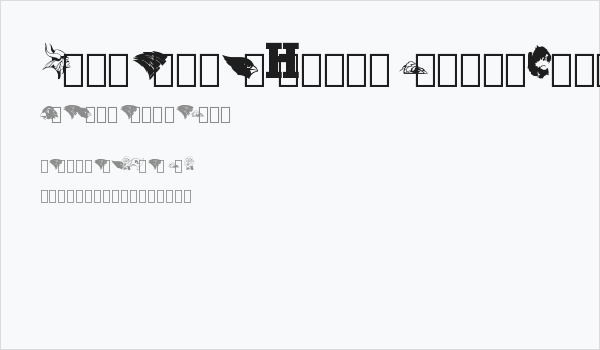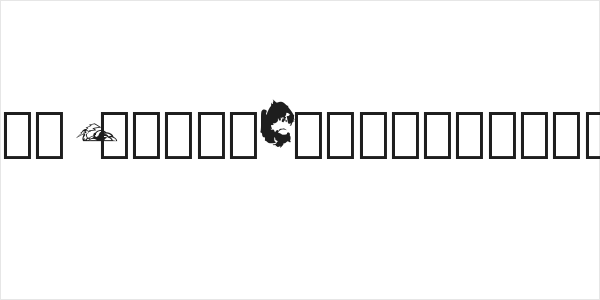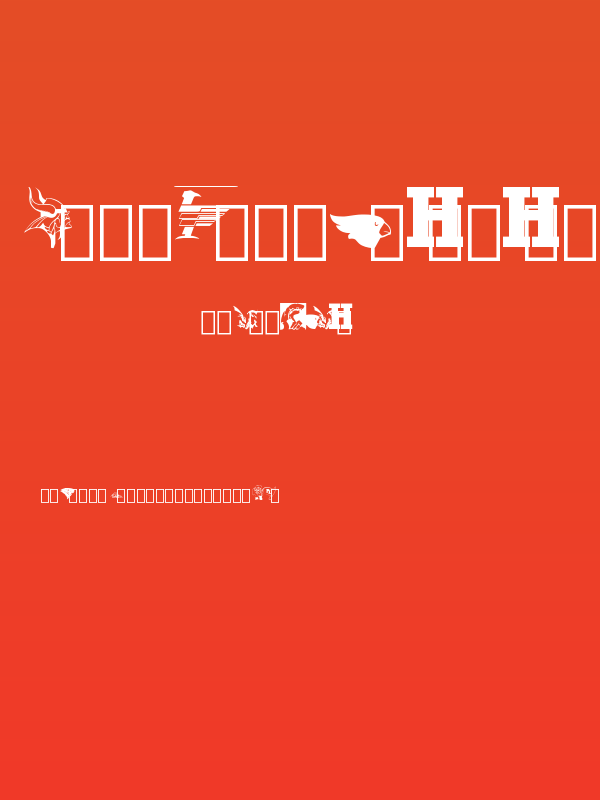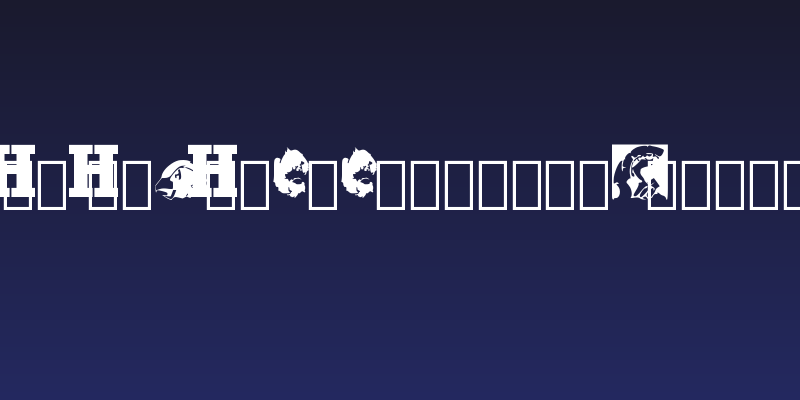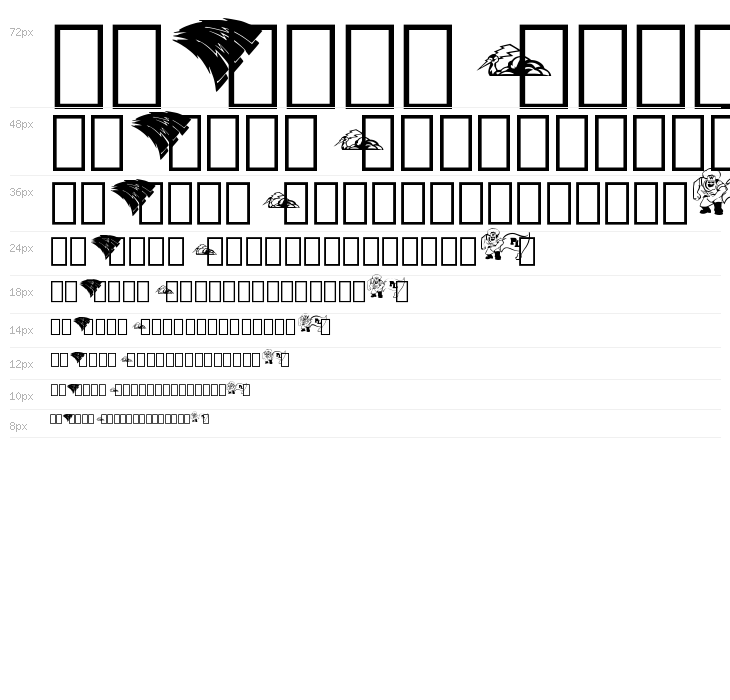
Minnesota High School Logos first font Regular Font
Minnesota High School Logos first font Regular Description
This is a decorative display set featuring stylized illustrations of various high school mascots and logos, including animals, sports figures, and emblematic letters, rendered in bold black-and-white line art.
| Overall Style | Decorative, School Spirit, Athletic |
| Use Case | Logos, Posters, Merchandise, School Publications |
| Proposed Projects | School branding, sports event posters, team merchandise, mascot-themed graphics. |